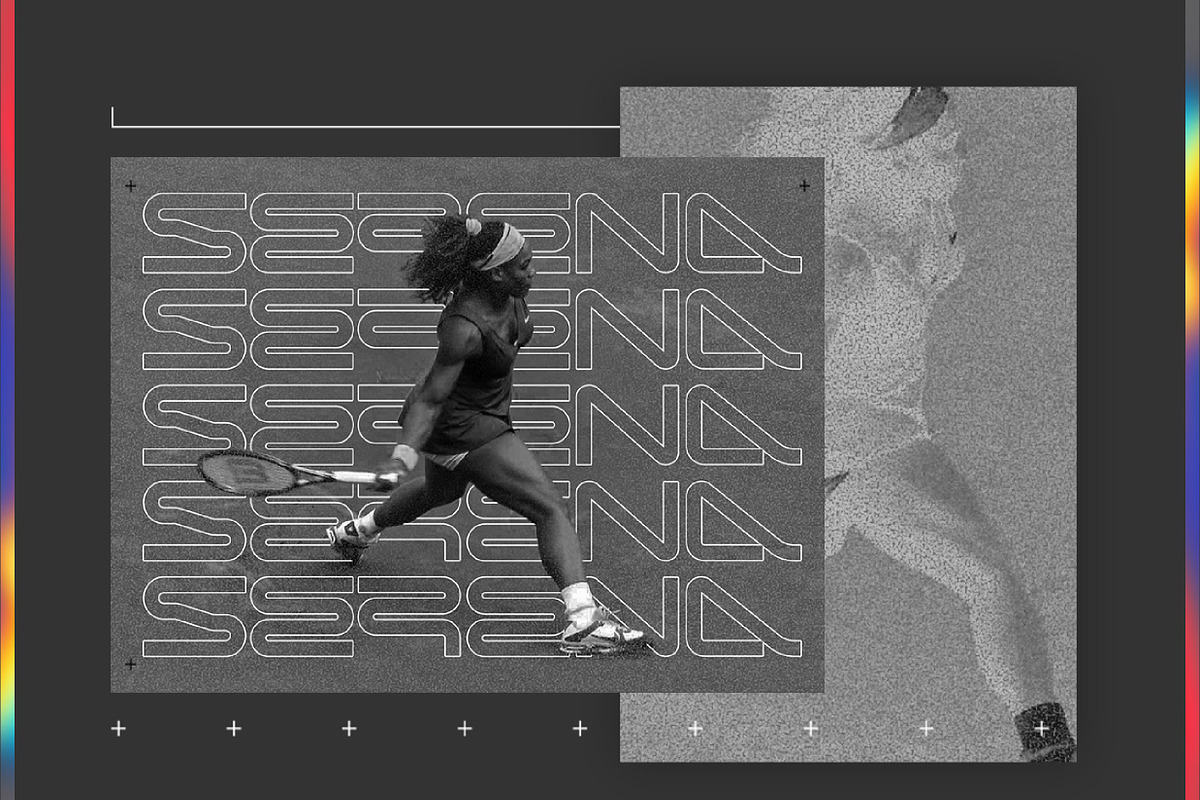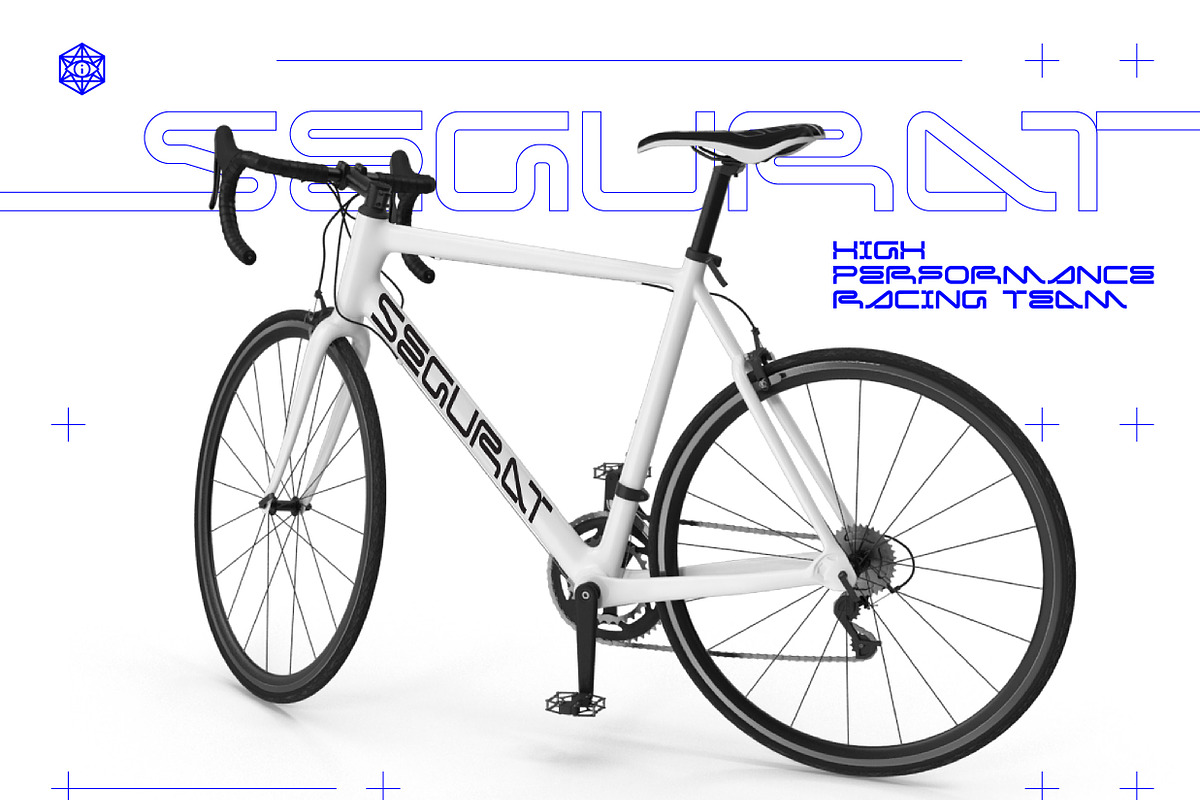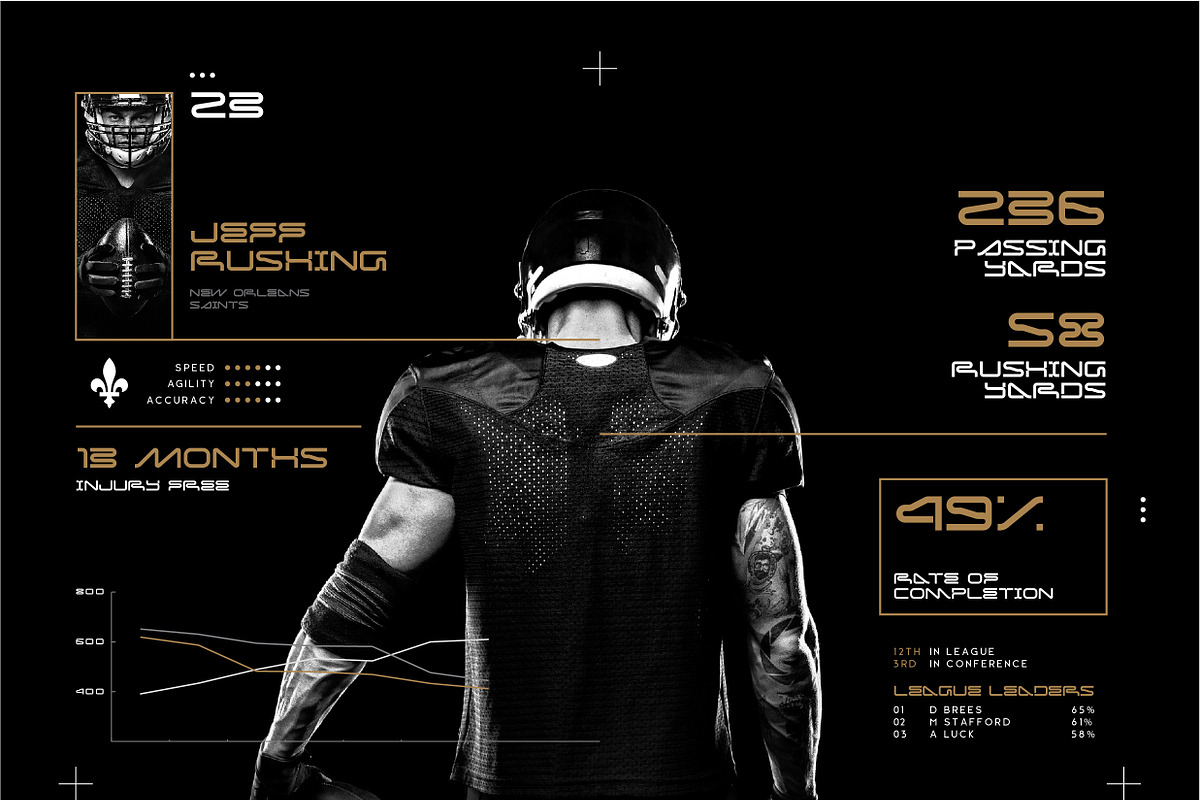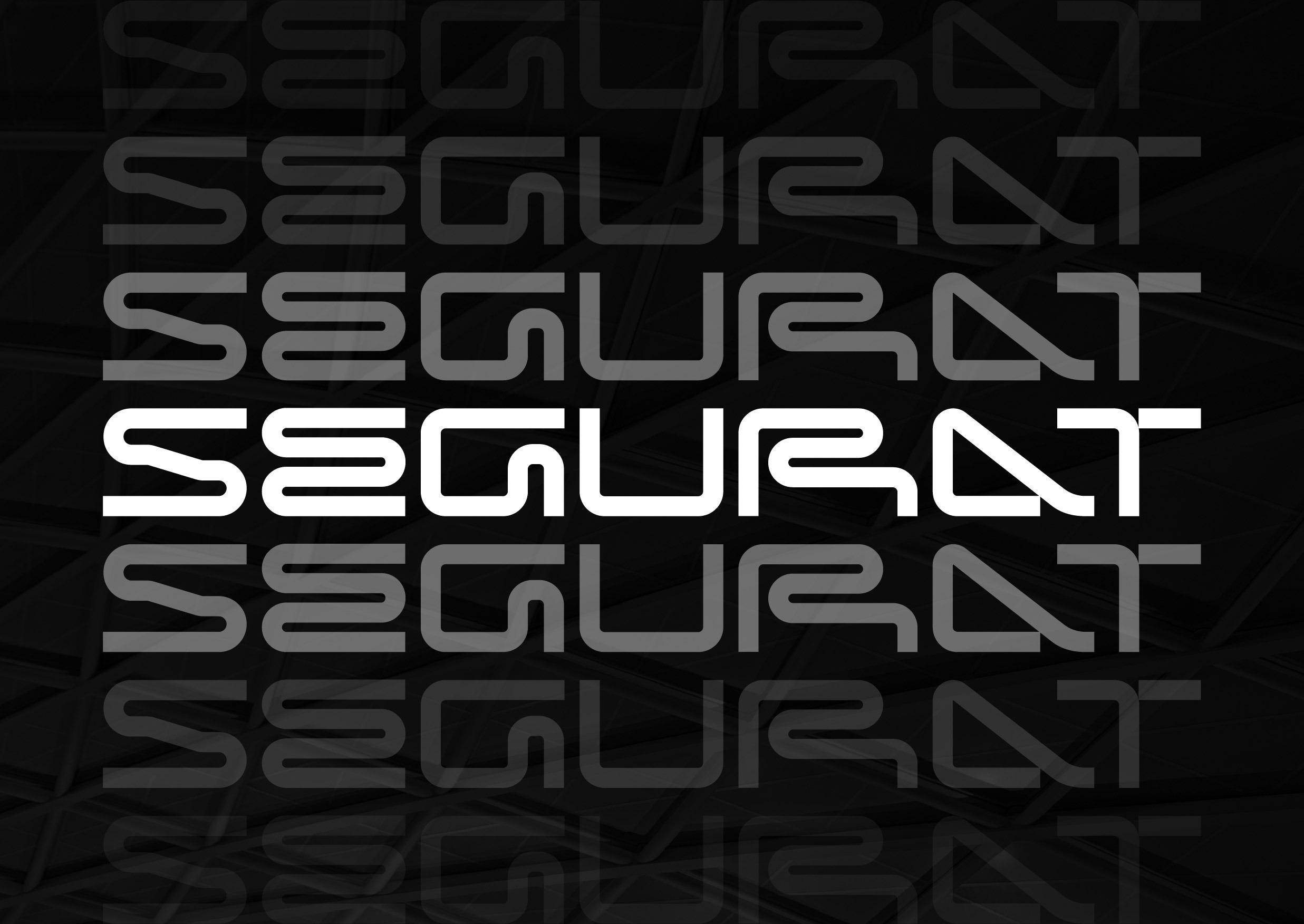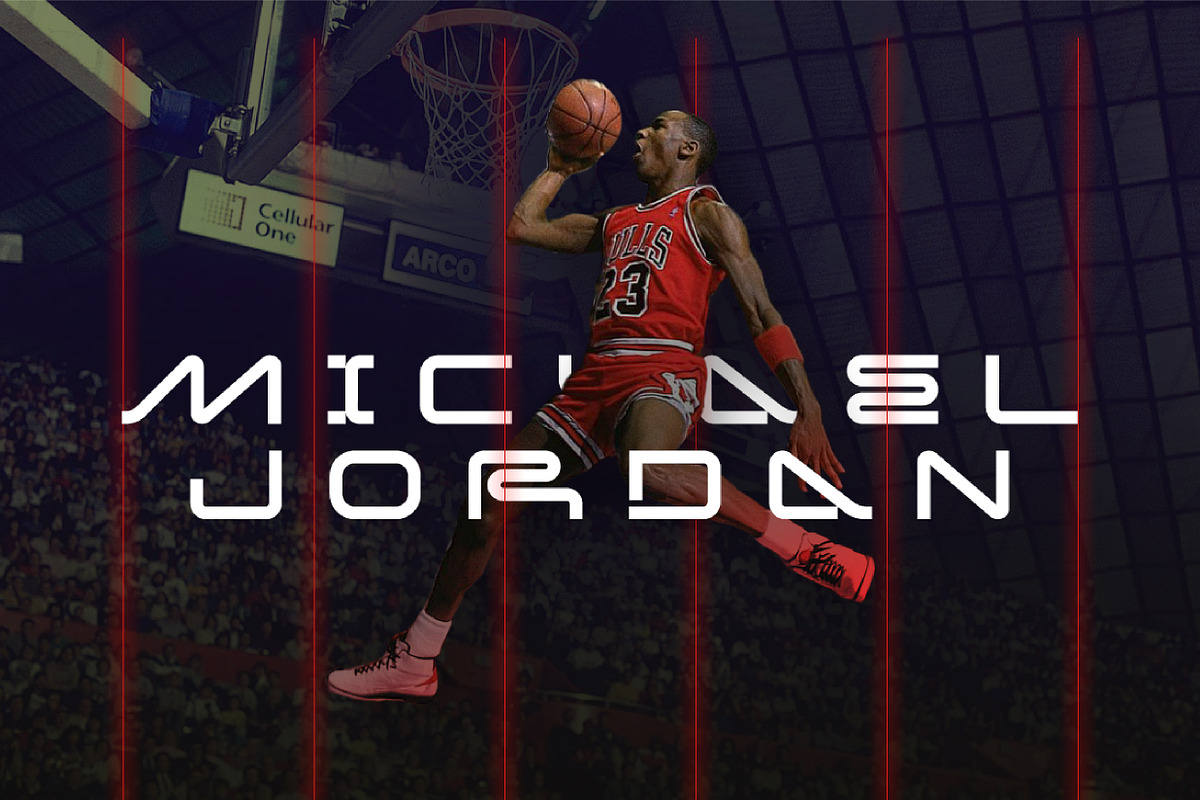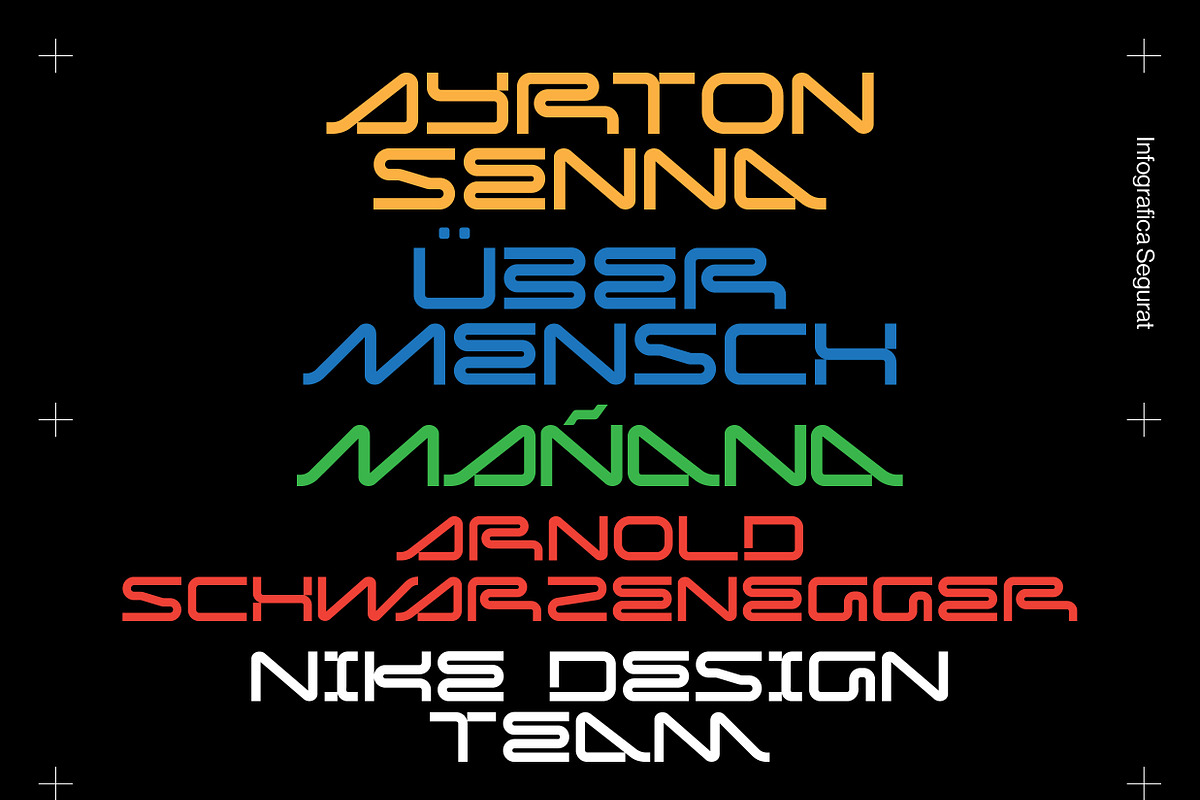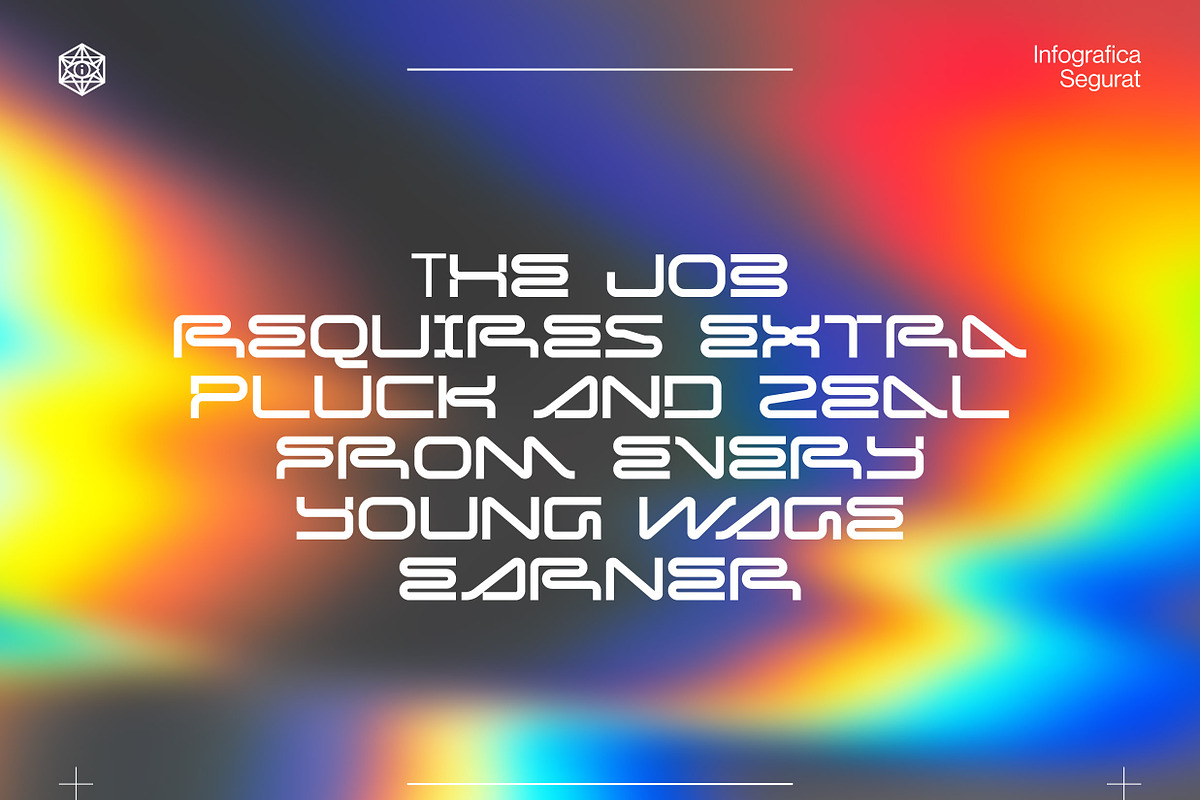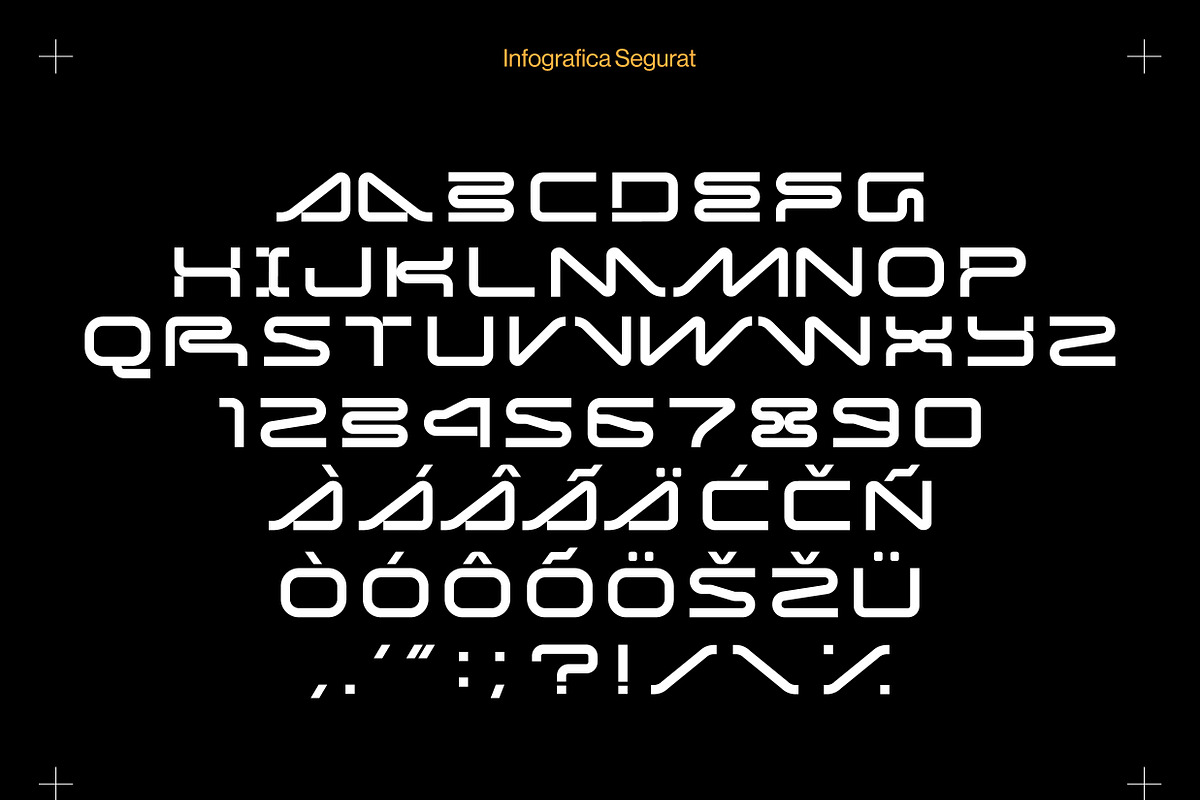
Infografica Segurat Typeface
Produced out of a recent project that required a custom type solution, Segurat is a crisp and brazenly futuristic display typeface. Looking for that perfect touch to add that edge for your sport, techwear and cyberpunk designs? Look no further!
The Infografica Segurat upper case typeface (INFSegurat.otf) with multiple character variables to help you typeset your best projects. Also features additional numbers, symbols and foreign language characters for languages like Croatian, Swedish and Turkish. Give the font a test drive below and let us know what you think. Future versions will include even more expanded characters as well as an outline and glitch version - buying now guarantees you these updates in the future.